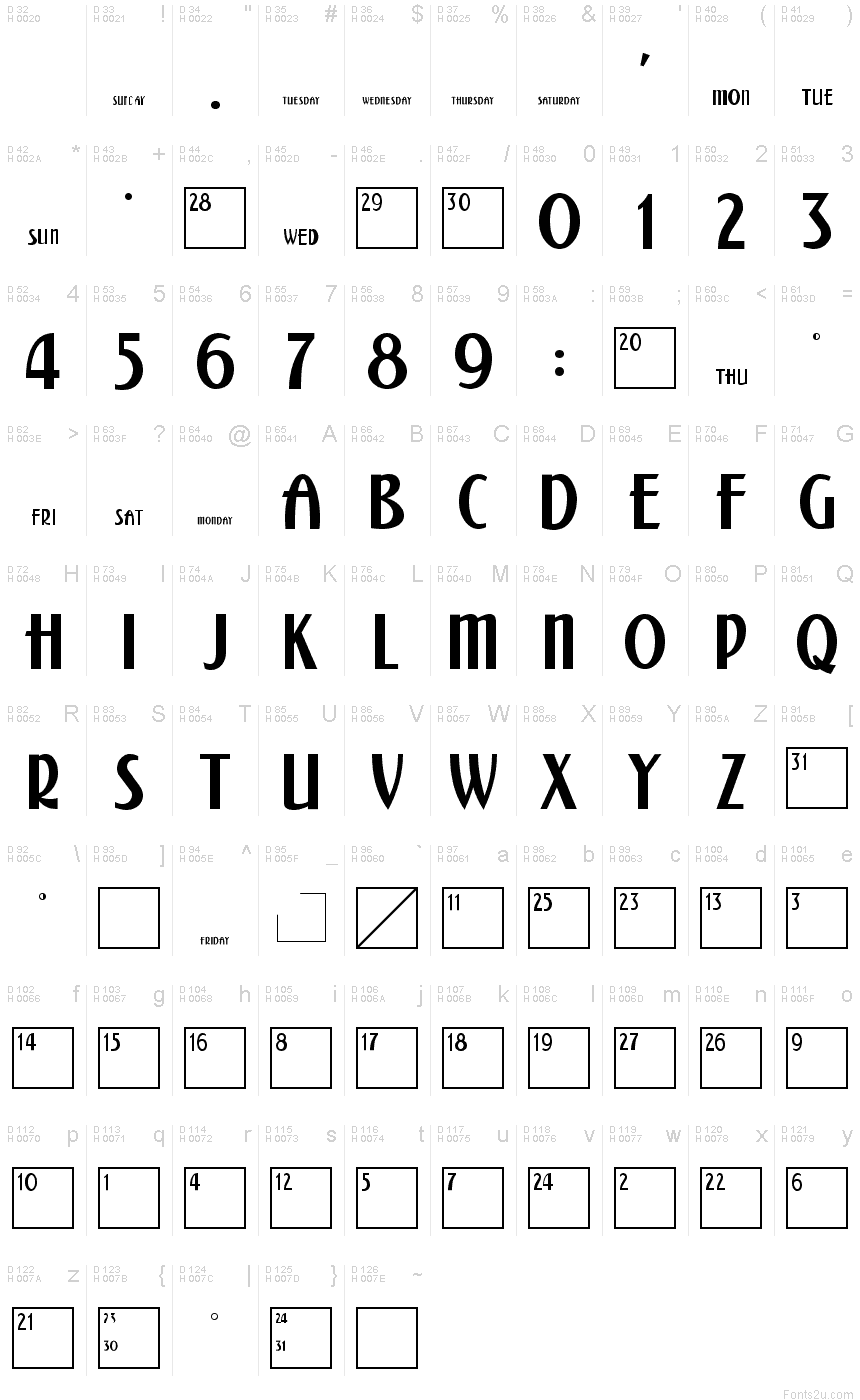
Calendar Normal
Calendar font by Thomas E. Harvey is a free retro display typeface in the Calendar family that instantly calls up vintage posters and printed wall calendars. Its tall, condensed letters, soft curves, and flared stroke endings create a strong vertical rhythm that reads clearly even at a distance, like bold ink brushed into narrow columns. The overall feel is playful but orderly, giving headings a distinctive, time-capsule charm without feeling chaotic.
Using Calendar, your titles snap into focus on event posters, calendars and planners, ticket designs, retro packaging, signage, and themed social graphics. The tight spacing keeps words compact, making this free font a natural fit when horizontal space is limited but personality is non‑negotiable. For a balanced layout, pair Calendar Normal with a clean geometric sans serif at smaller sizes so the decorative caps stay in the spotlight.